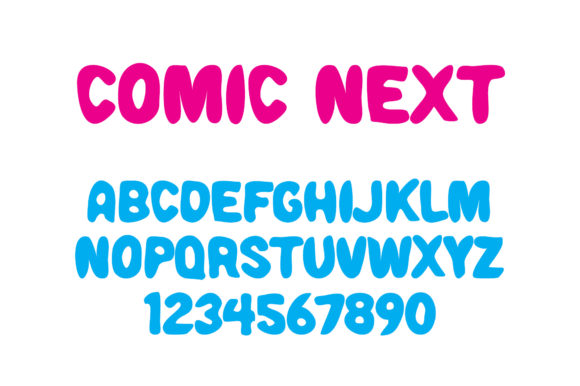
Immerse yourself in a world of captivating creations with Comic Next, the ultimate display font designed to ignite your imagination and bring life to your digital expressions. Crafted with meticulous attention to detail by the visionary Vladimir Carrer, Comic Next boasts a playful and bold personality, making it the perfect choice for projects seeking a touch of lightheartedness and charm.
With its chunky, hand-drawn letters and authentic, playful charm, Comic Next is the ideal font for projects aimed at young audiences. Its whimsical nature adds a layer of delight to children's books, animations, posters, and more, capturing their attention and immersing them in a world of excitement and imagination.
As a display font, Comic Next excels in creating captivating headlines, titles, and logos. Its bold presence commands attention, ensuring your message stands out from the crowd. Whether you're a graphic designer, marketer, or content creator, Comic Next will elevate your work with its unique visual appeal and playful energy.
But Comic Next's versatility doesn't stop there. Its friendly and welcoming demeanor makes it a perfect fit for projects targeting families, schools, and educational institutions. Lesson plans, presentations, and educational materials come alive with Comic Next's playful charm, making learning an engaging and enjoyable experience for young minds.
In the world of branding and marketing, Comic Next shines as a powerful tool for creating memorable and engaging brand identities. Its playful and approachable personality resonates with audiences, fostering a sense of connection and trust. Whether you're designing packaging, promotional materials, or website content, Comic Next will help you craft a brand identity that stands out and captures hearts.
So, unleash your creativity and embark on a journey of visual delight with Comic Next. Let its playful spirit ignite your imagination and transform your digital creations into captivating masterpieces. Embrace the joy of self-expression and make your mark on the world with Comic Next, the font that brings smiles and wonder to every project it graces.